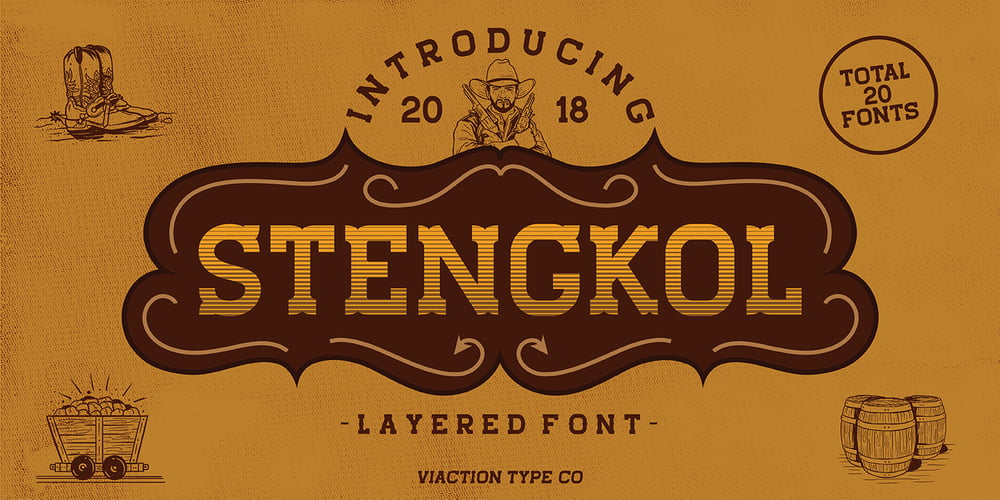
Stengkol Font Family was designed by Lukman Hidayat and published by Viaction Type.Co. Stengkol contains 20 styles and family package options. Stengkol Font Family of 20 fonts and 1 font cowboy illustration. Slab serif with various font styles with layered fonts. It’s easy to use various fonts in one design and combined with cowboy illustrations. Stengkol Font Family comes with: – Uppercase. – Lowercase. – Numerals. – Punctuation. – Multilingual. Stengkol Font Family is perfect for t-shirt designs, merchandise, posters, qoute, tickets, logotype and other designs. Thanks.